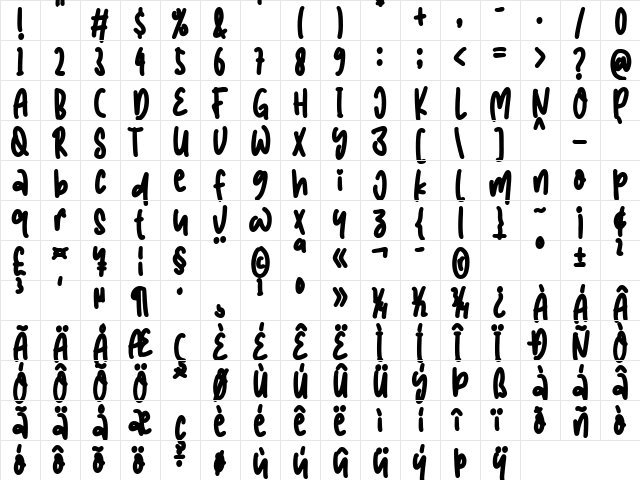
mama papa Regular
| Designer | Siti Nurjanah |
Design Context for mama papa Typeface
mama papa is a composed and adaptable typeface that performs quietly and consistently across a wide range of design contexts.